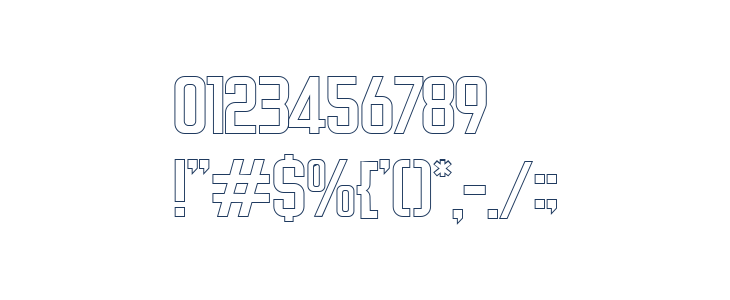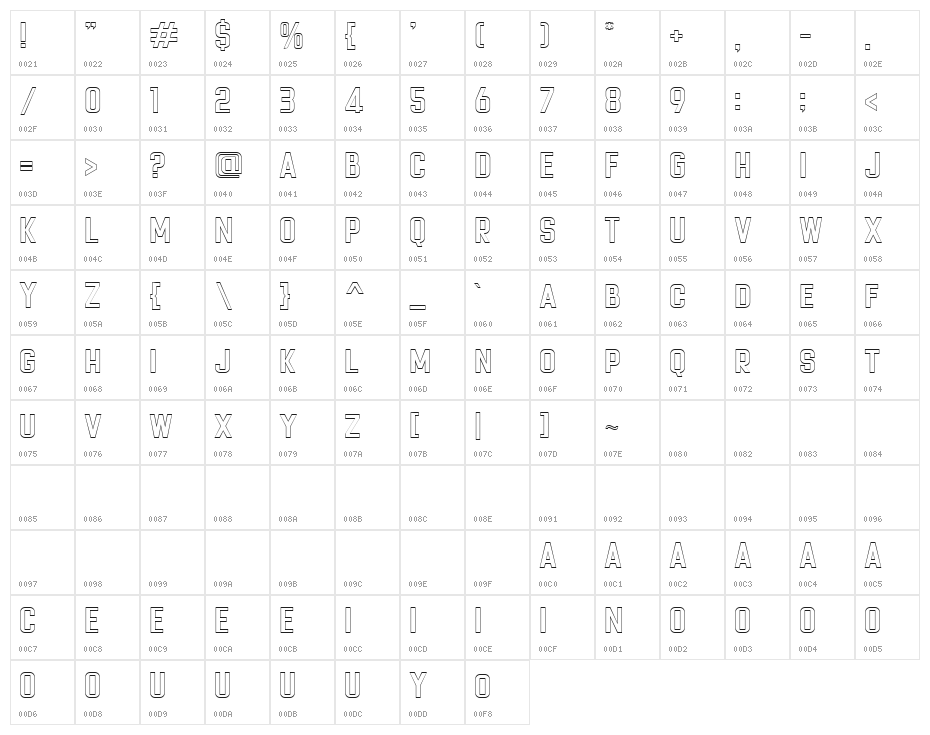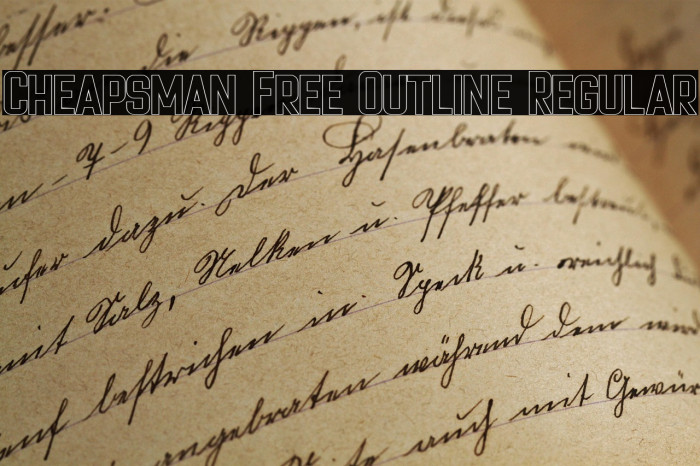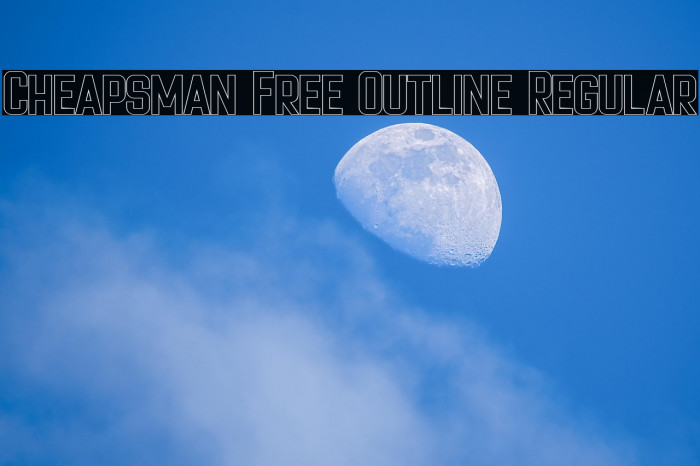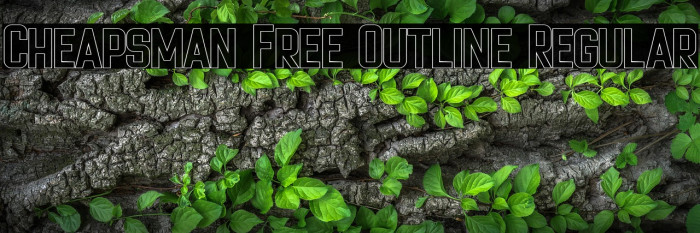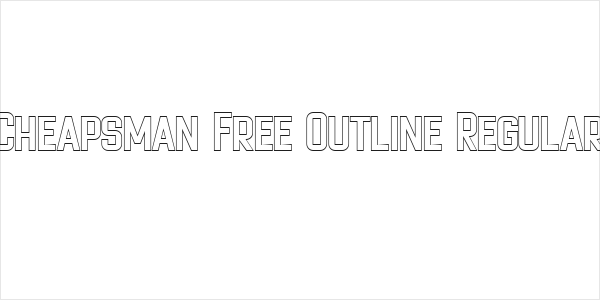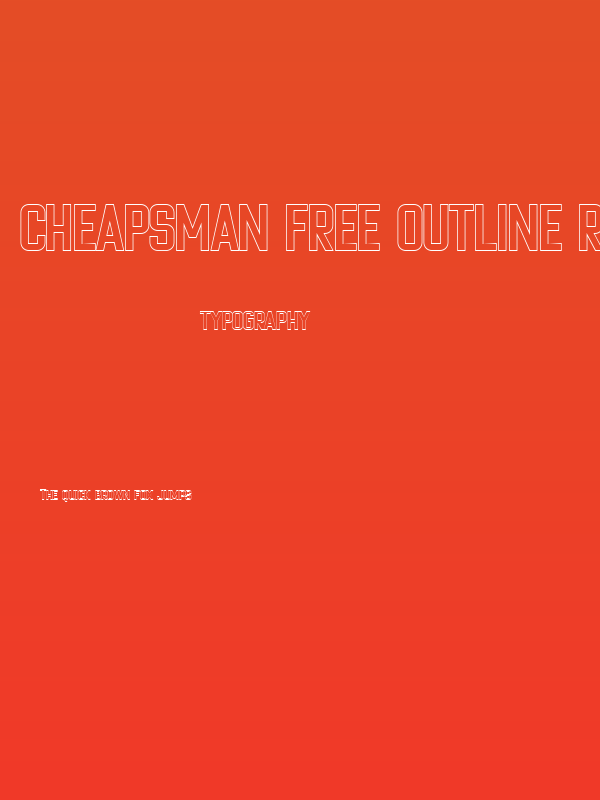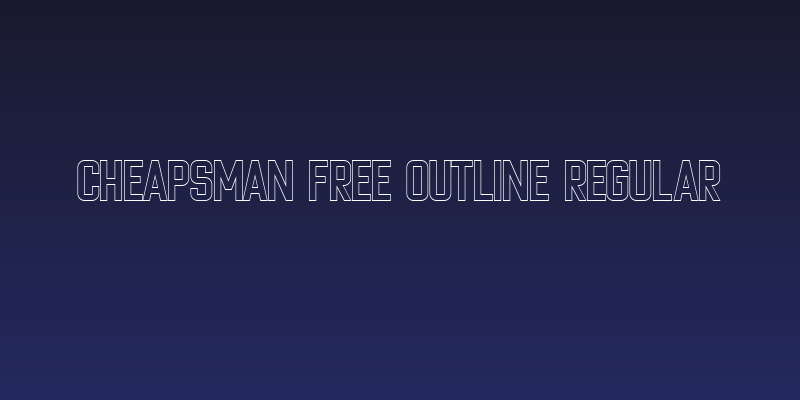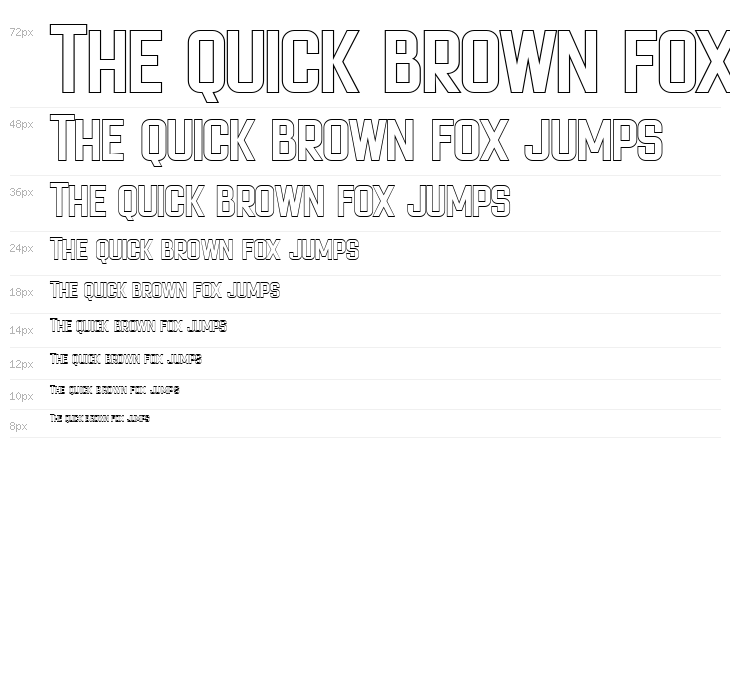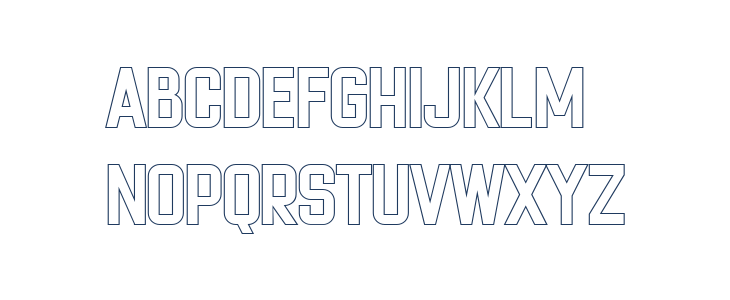
Cheapsman Free Outline Regular Font
Cheapsman Free Outline Regular Description
This font features a bold, geometric outline style that emphasizes clarity and modernity. Each character is crafted with precision, showcasing a uniform thickness in its outline that creates a striking visual impact. The uppercase and lowercase letters maintain a consistent height and width, contributing to a balanced and cohesive appearance. The numerals and special characters are designed to match the overall aesthetic, ensuring versatility across various applications. The font's clean lines and open spaces make it highly legible, even at smaller sizes, while its bold presence ensures it stands out in larger formats.